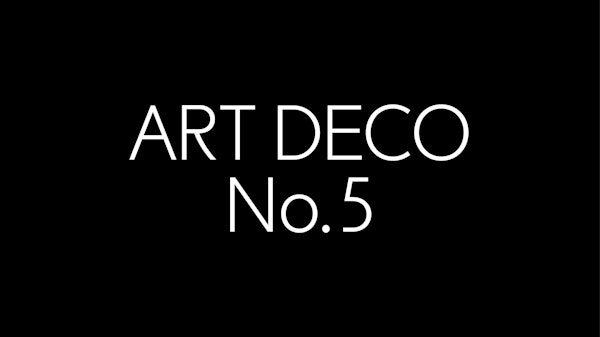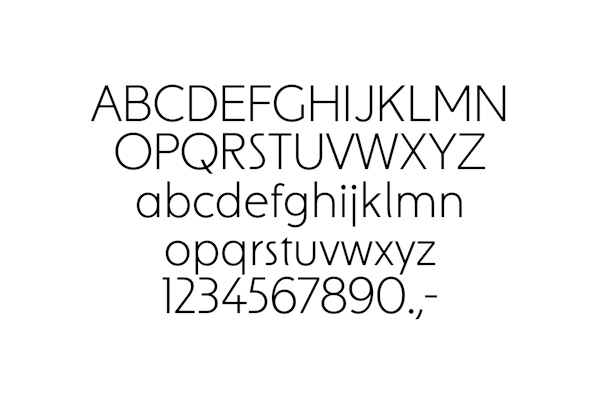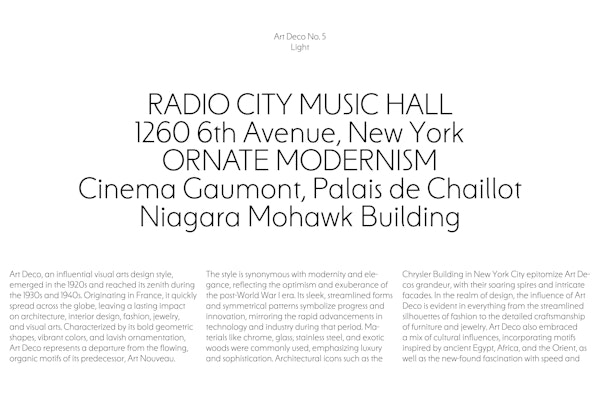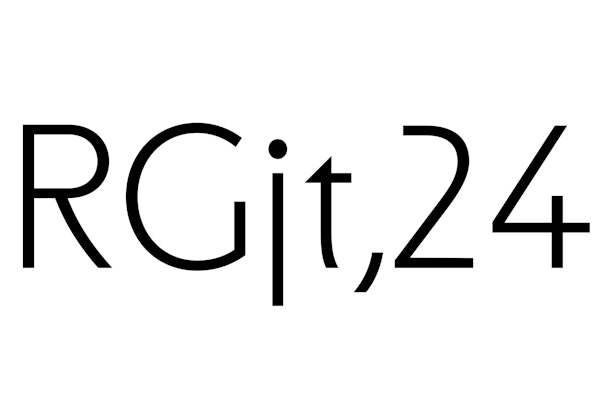
Art Deco No. 5 Typeface
Art Deco No. 5 is a new member in our studio font family of typefaces we have created. The design is based on visual elements from the Art Deco movement, an influential visual arts design style, emerging in the 1920s that reached its peak during the 1930s and 1940s. Originally from France, it quickly spread across the globe, leaving a lasting impact on architecture, interior design, fashion, jewelry and visual arts.
• Weights: Light
• Glyph count: 450
• Supported Languages: Western Europe, Central/Eastern Europe, Baltic, Turkish, Romanian